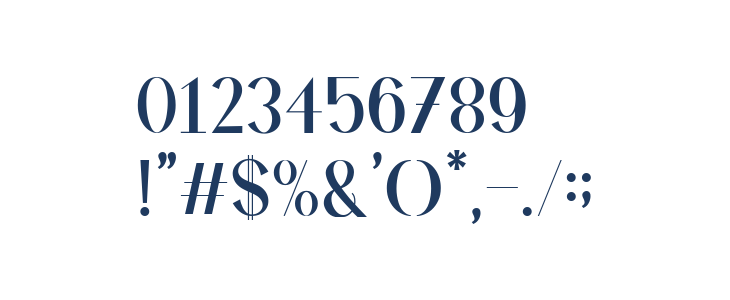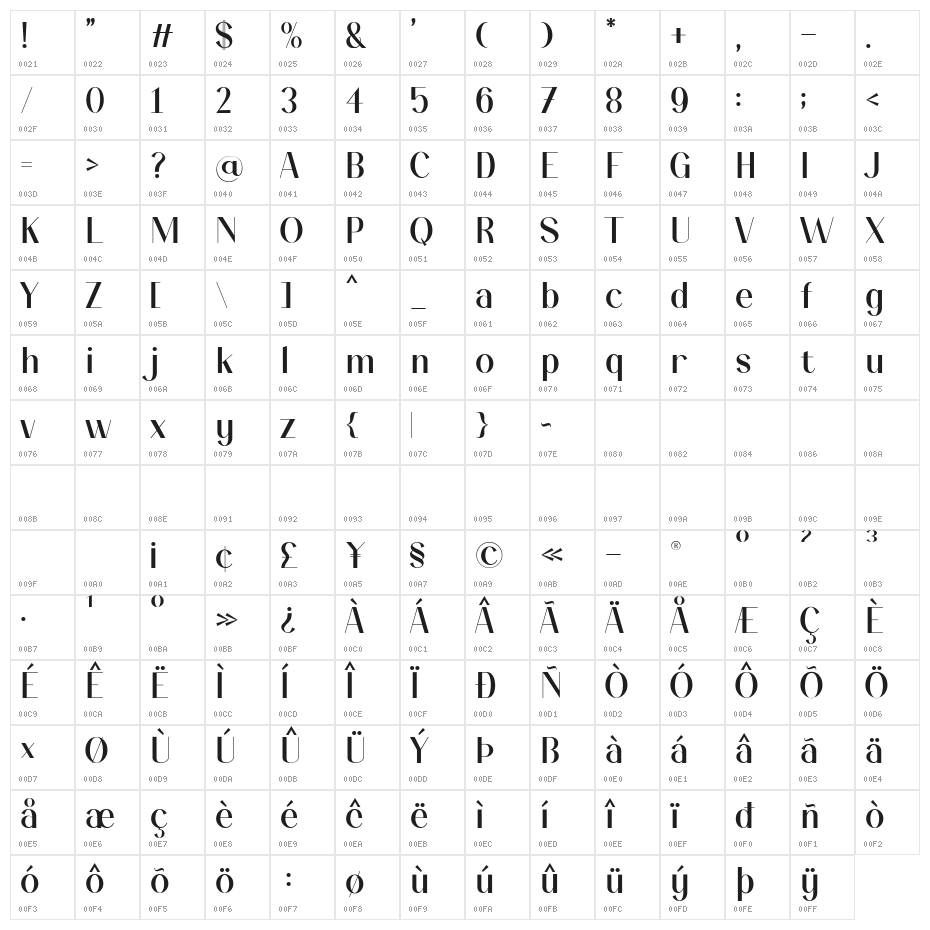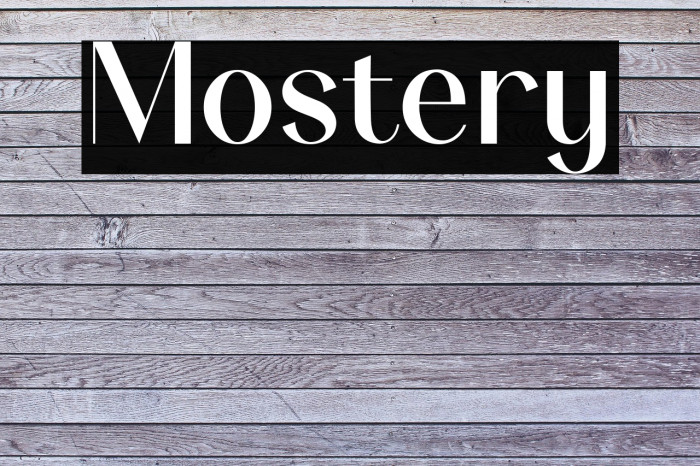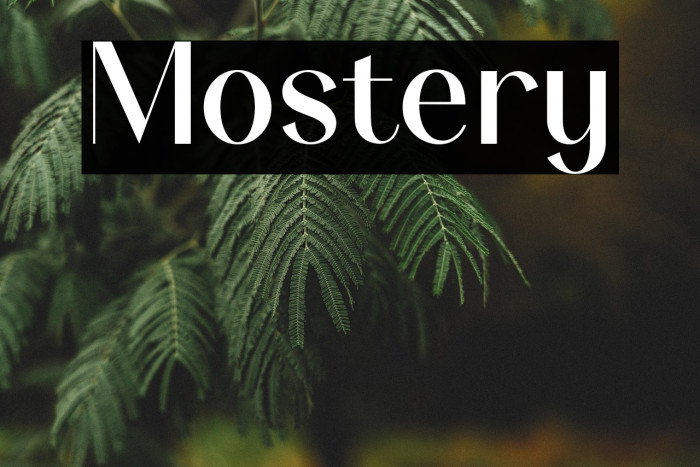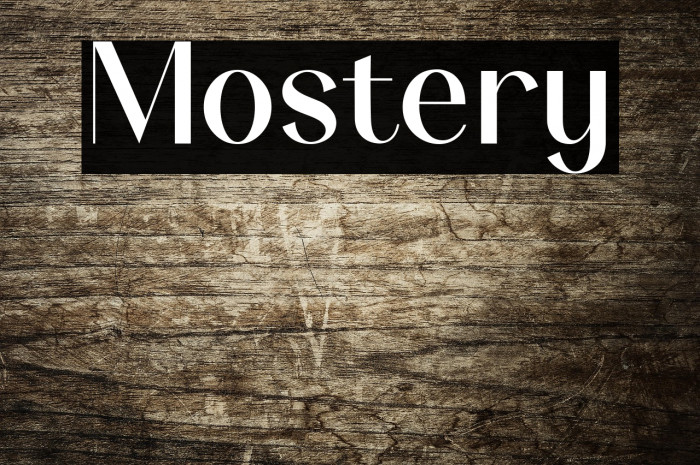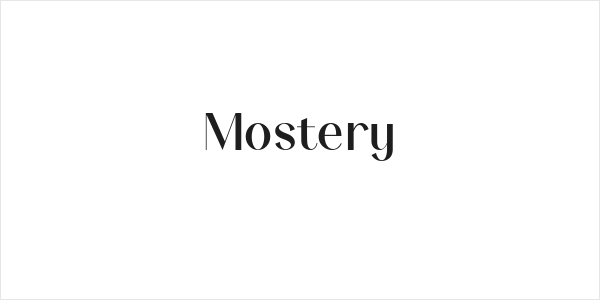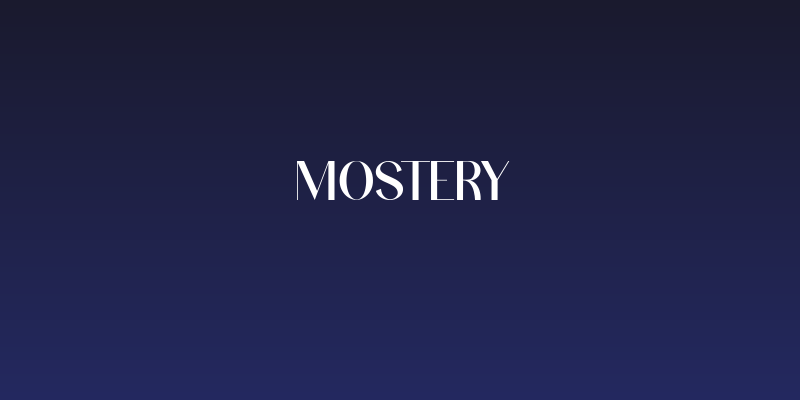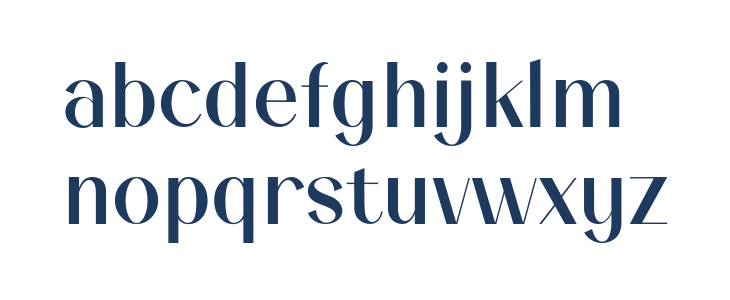
Mostery Font
Mostery Description
This font features a striking contrast between thick and thin strokes, giving it a modern and elegant appearance. The uppercase letters are tall and slender, with sharp angles and clean lines, while the lowercase letters maintain a consistent style with a slightly more rounded approach. The numerals are distinct and easy to read, with a sophisticated flair that matches the overall aesthetic. Special characters are designed with the same attention to detail, ensuring a cohesive look across all text. This font's unique style makes it suitable for a variety of design projects.
| Proposed Projects | Ideal for luxury branding, editorial design, fashion magazines, and high-end product packaging. |